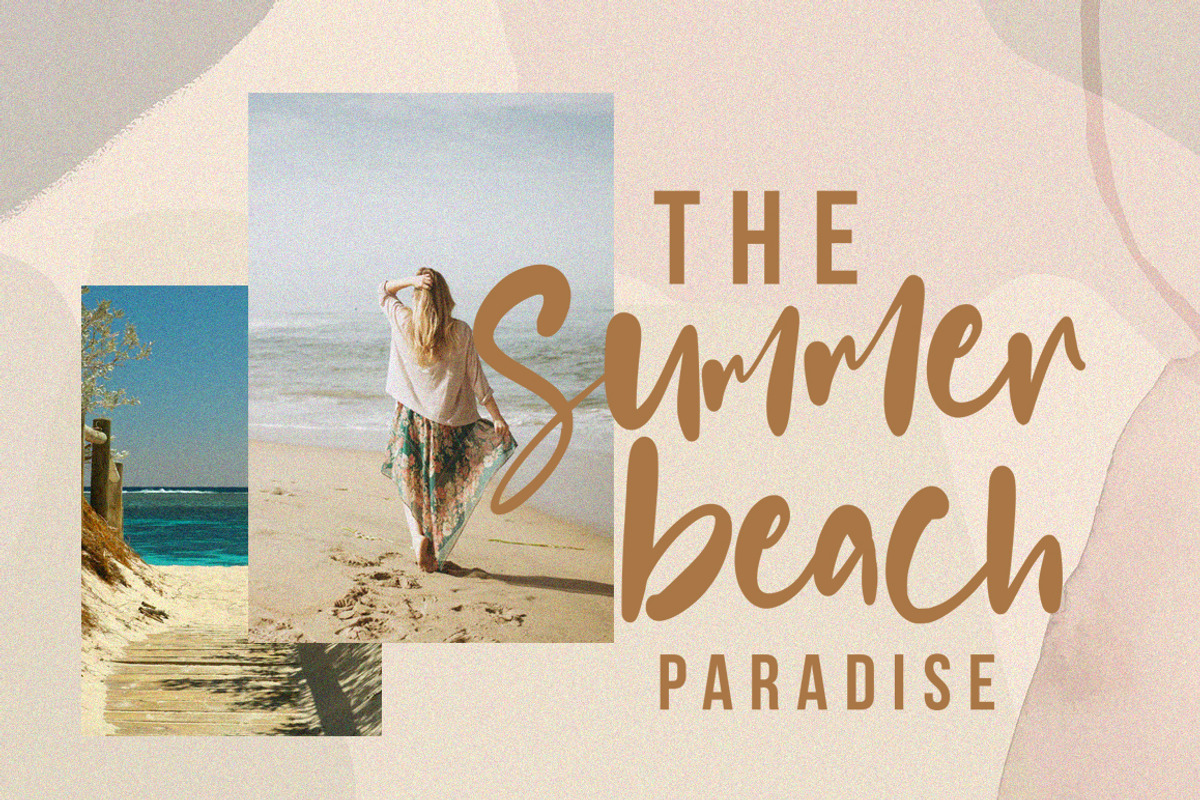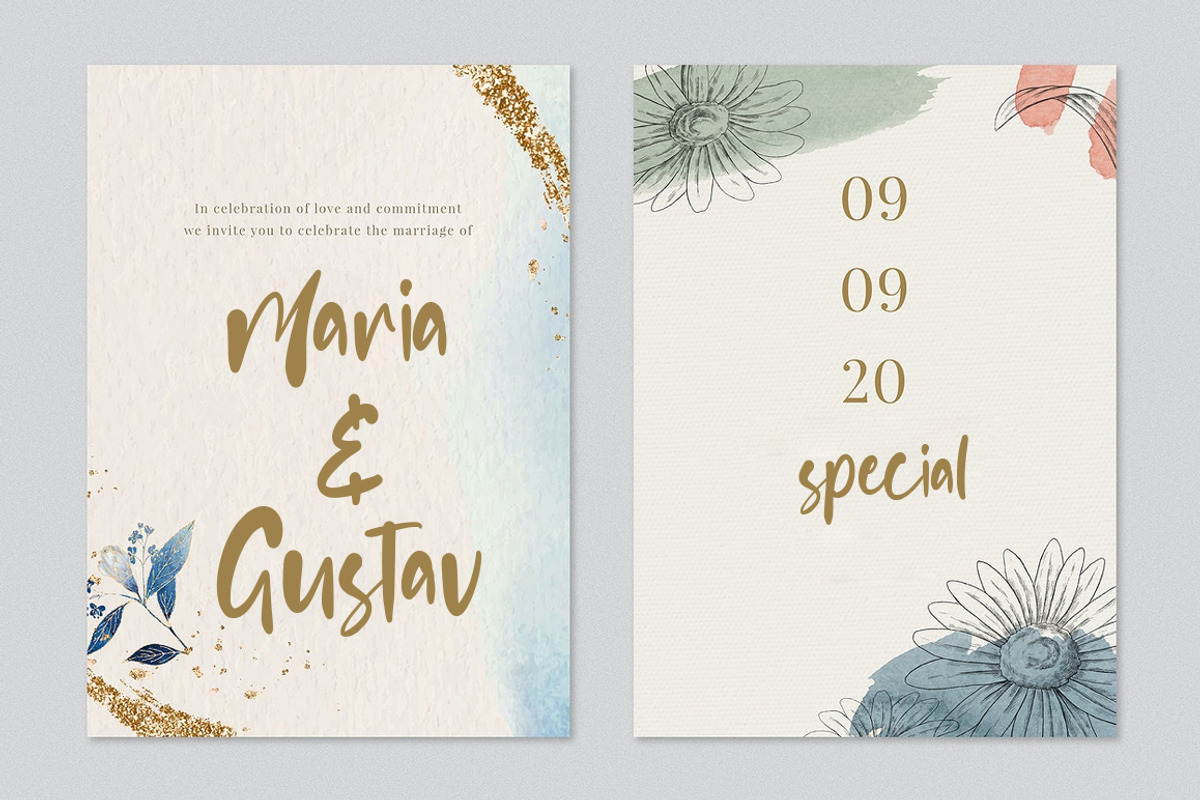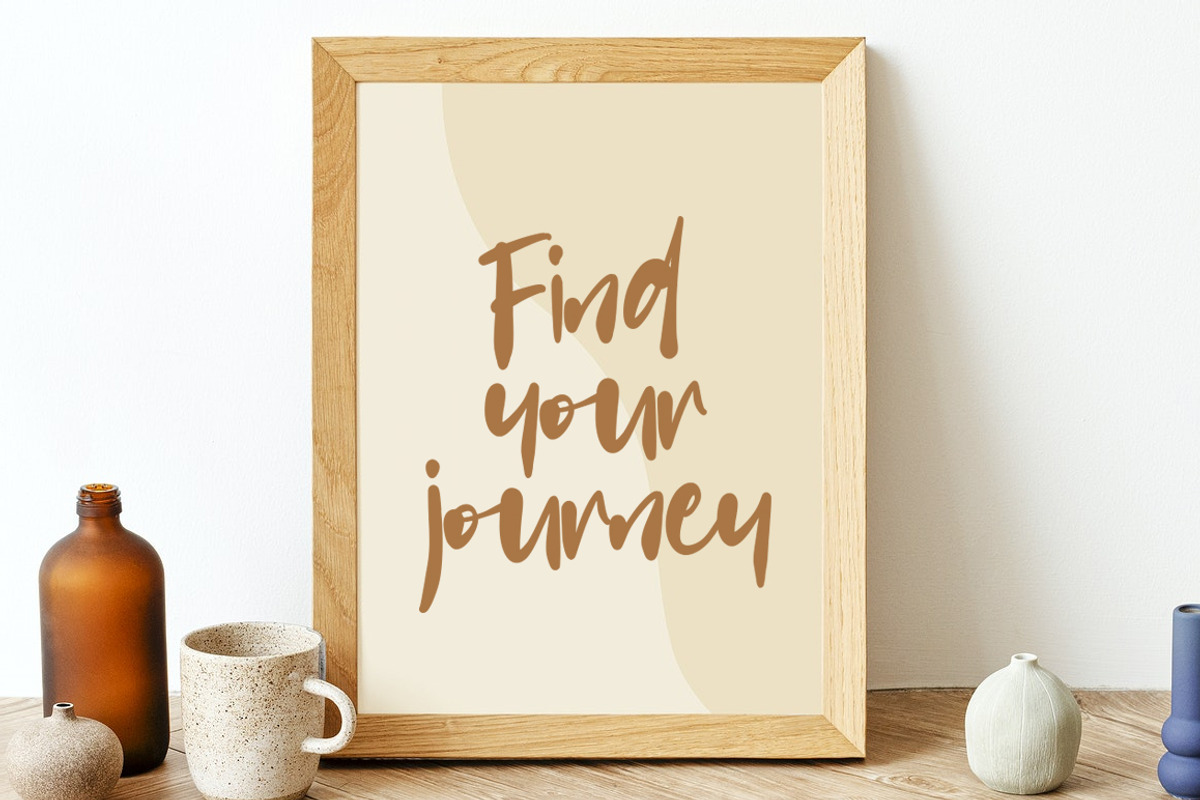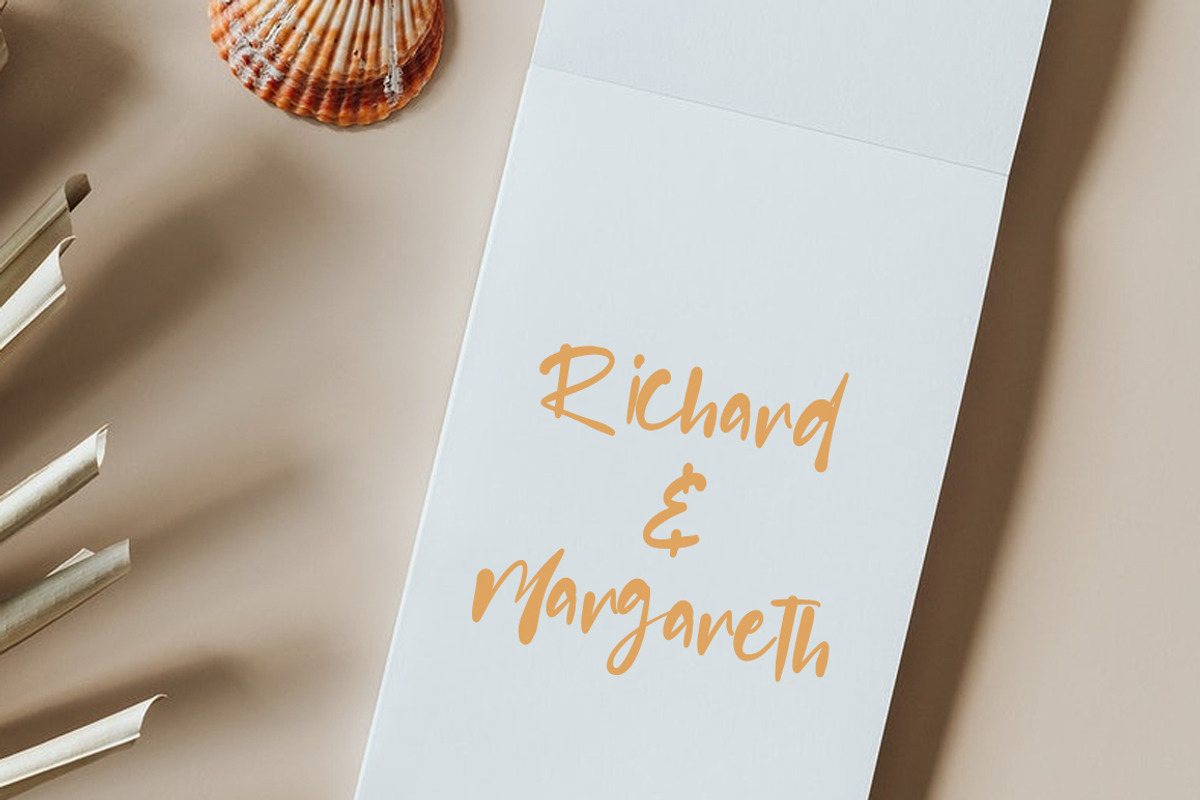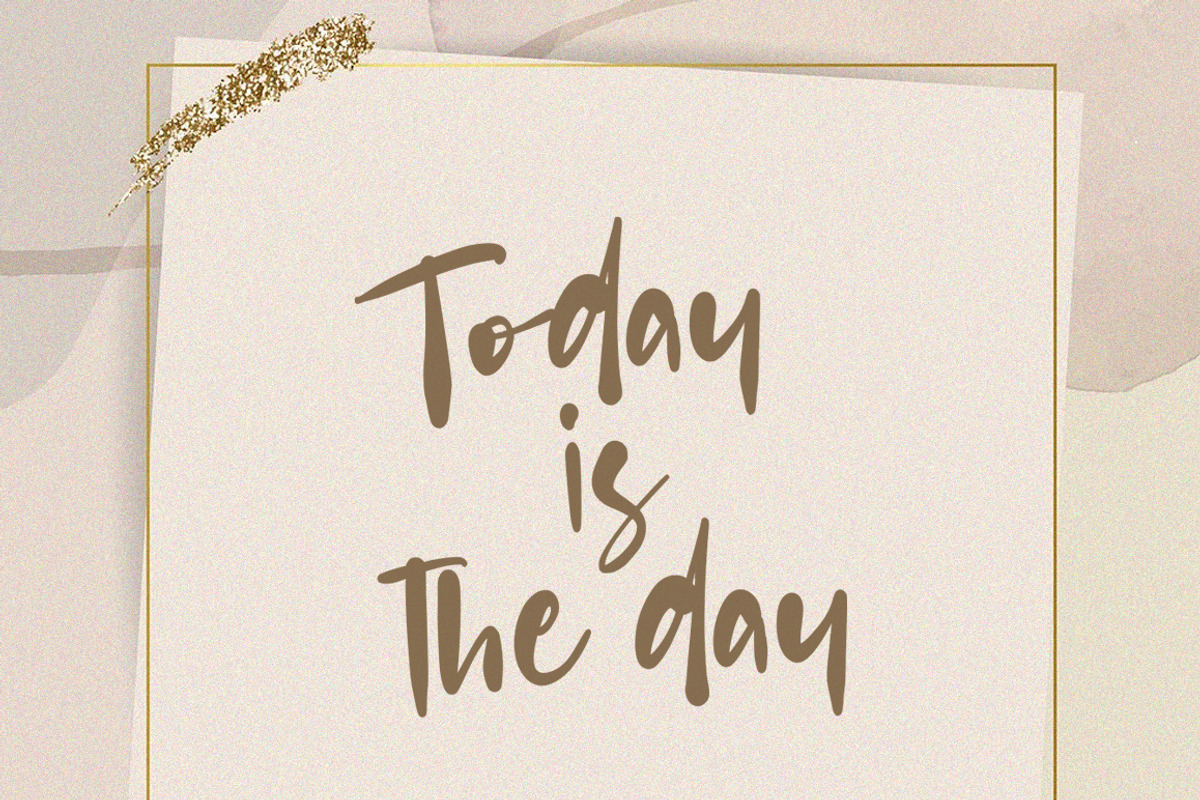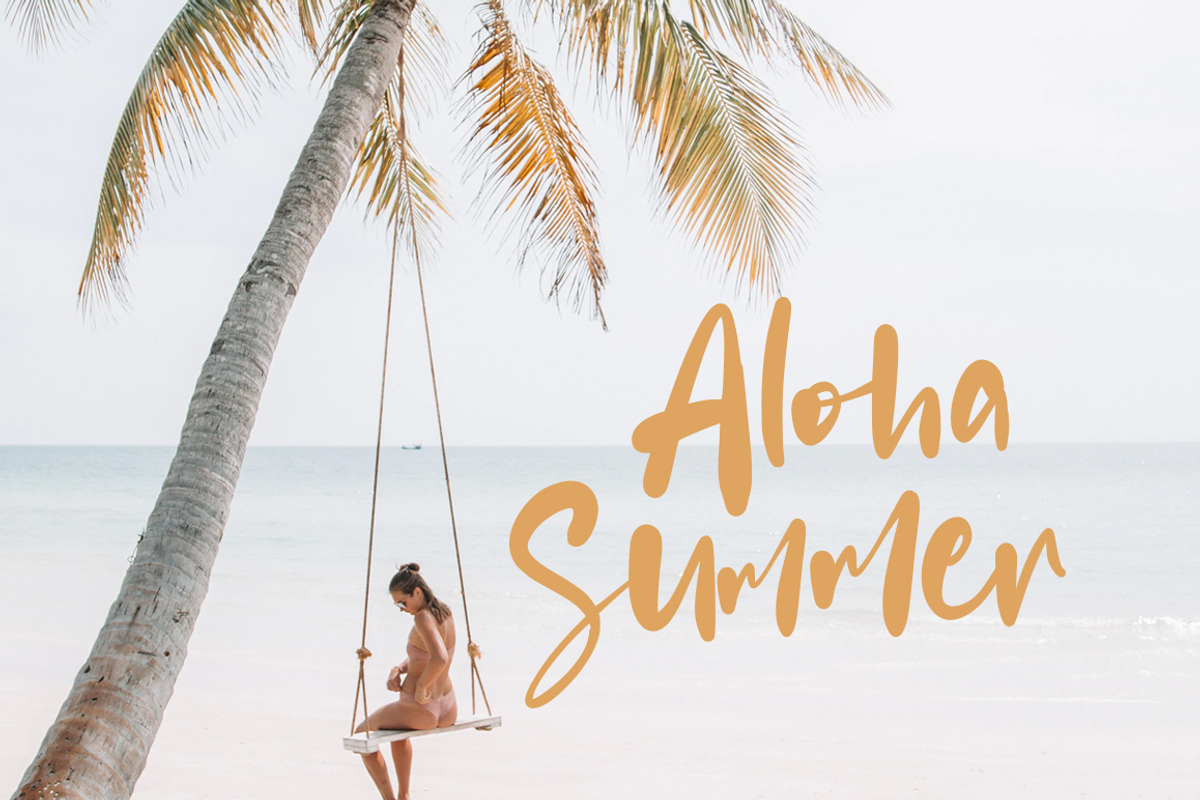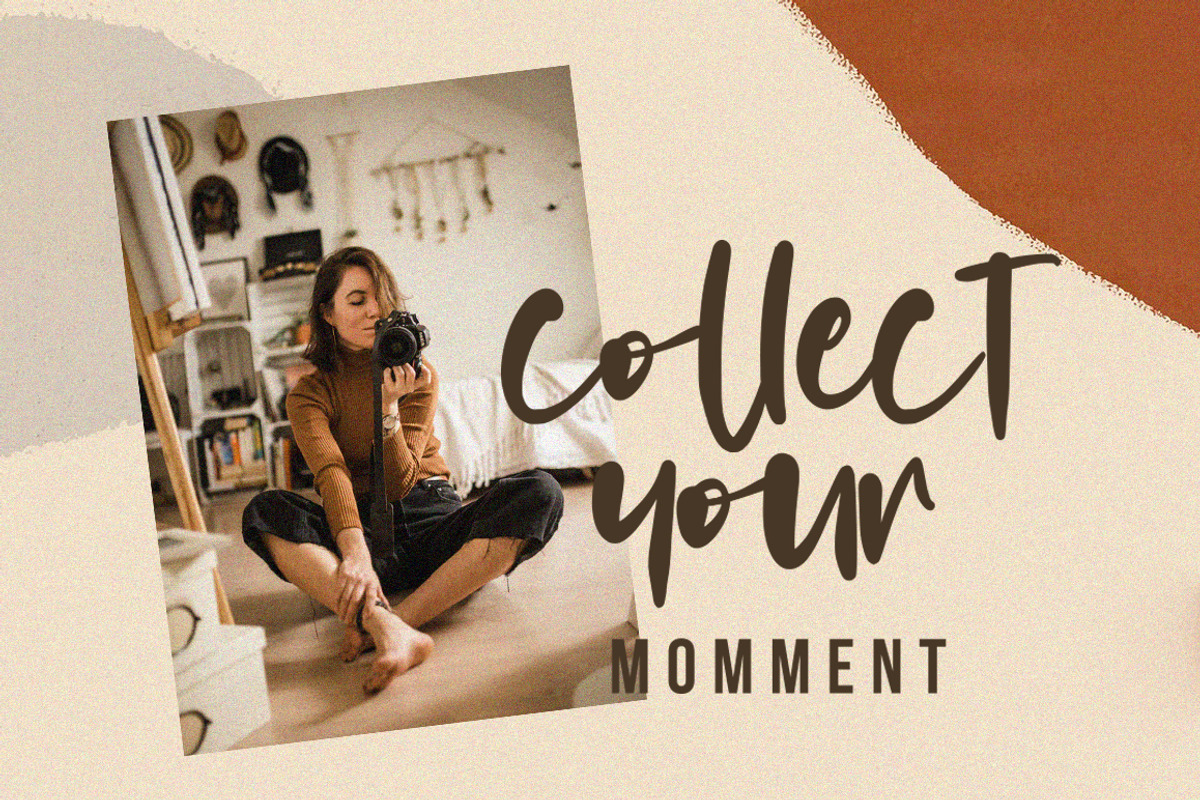
Battnise ~ Brush Font
Aloha! Battnise is a authentic brush font, perfect for creating beautiful logos, signage, social media, blog posts, styled quotes, packaging, and more! Battnise is free-spirited and carefree + handcrafted with lots of love for your beautiful projects ♡
Upper + Lowercase Letters
Numbers + Punctuation
Multilingual support It also includes a clean version without texture. OpenType features (ligatures and alternates) helps to make your lettering more interesting. Also there is swashes alternate